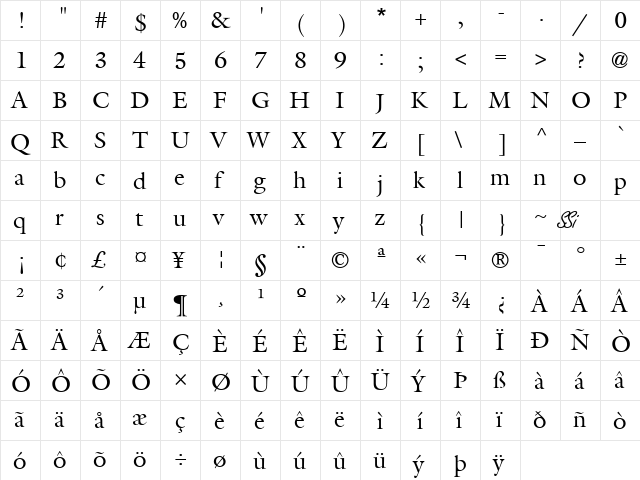
Acanthus SSi Regular
Design Context for Acanthus SSi Typeface
Acanthus SSi offers clean, dependable letterforms without strong stylistic allegiance, making it a practical choice for designers who need flexibility.
Pro Tip: Use Acanthus SSi in both headline and body roles to test its range before committing to a single application.